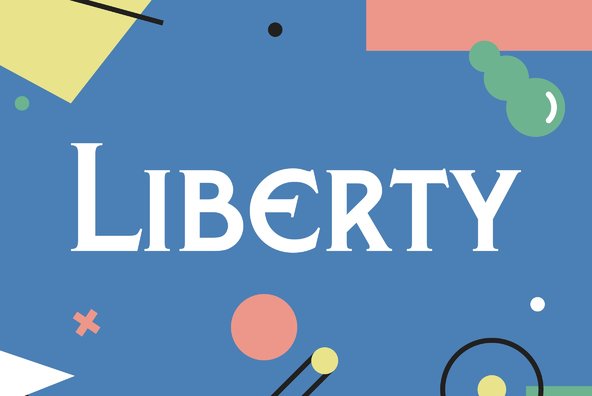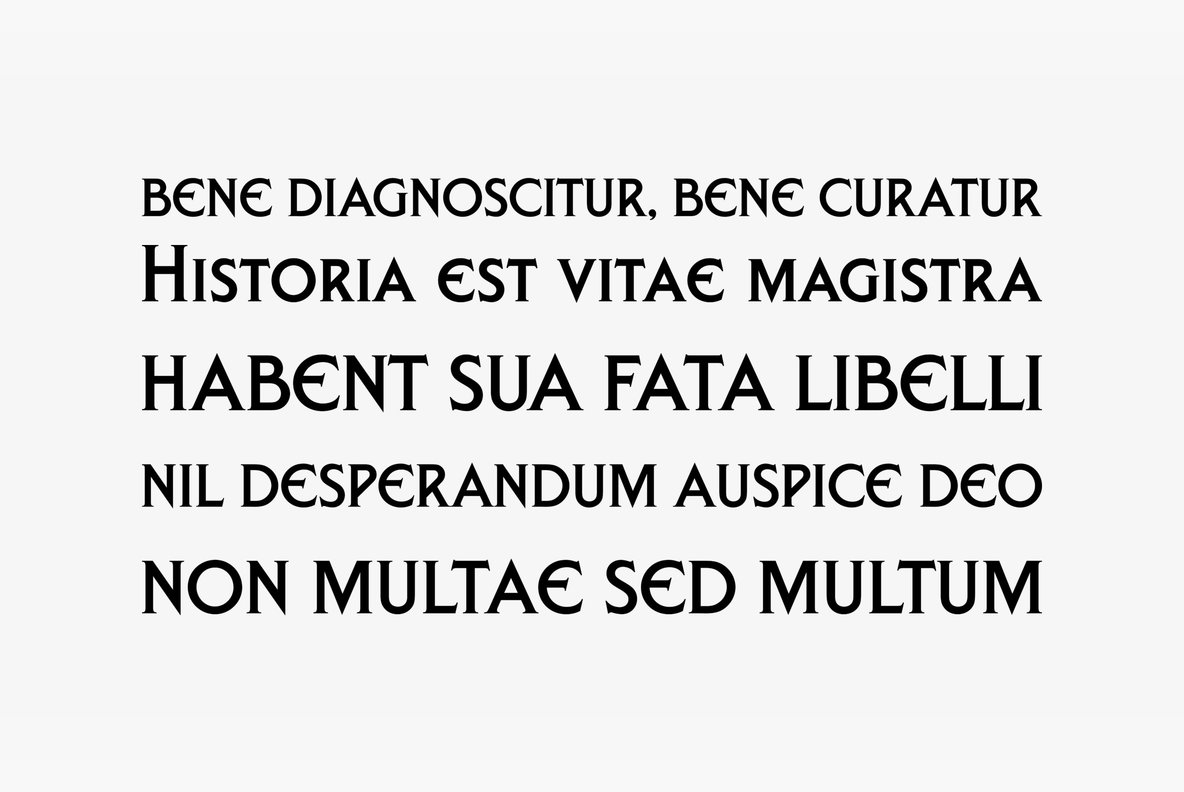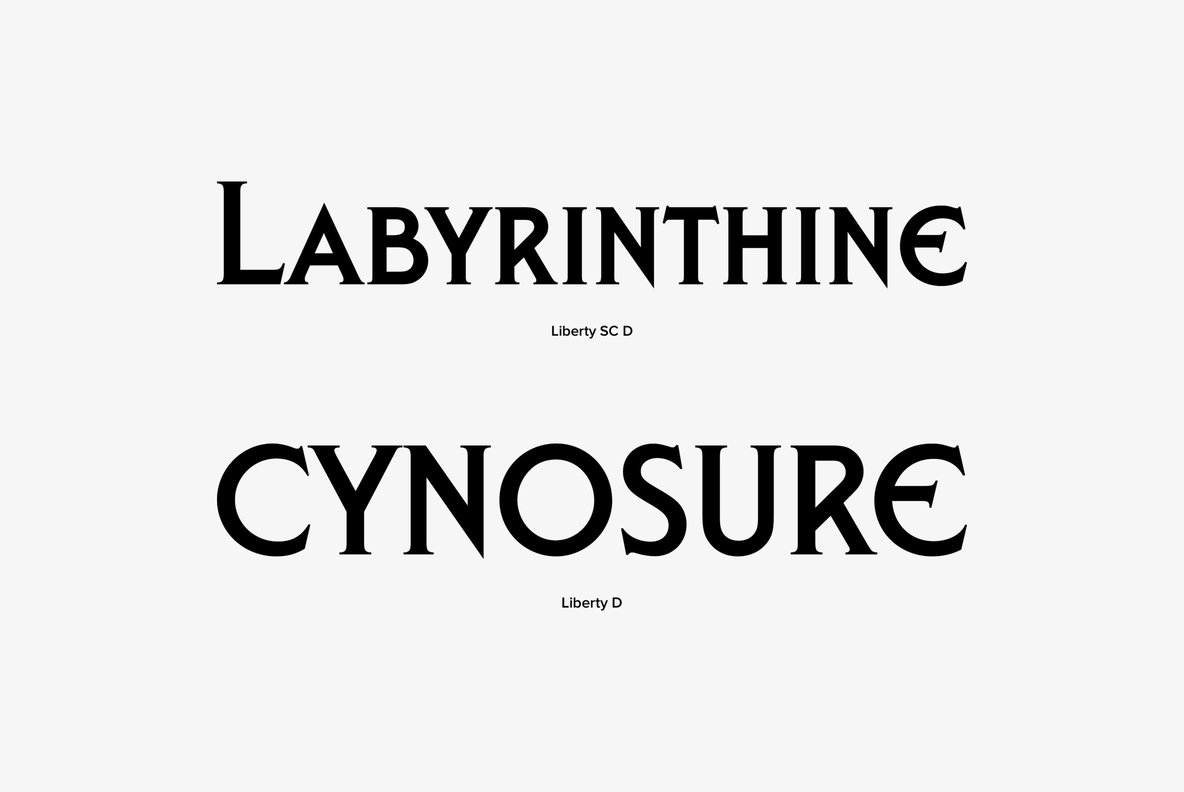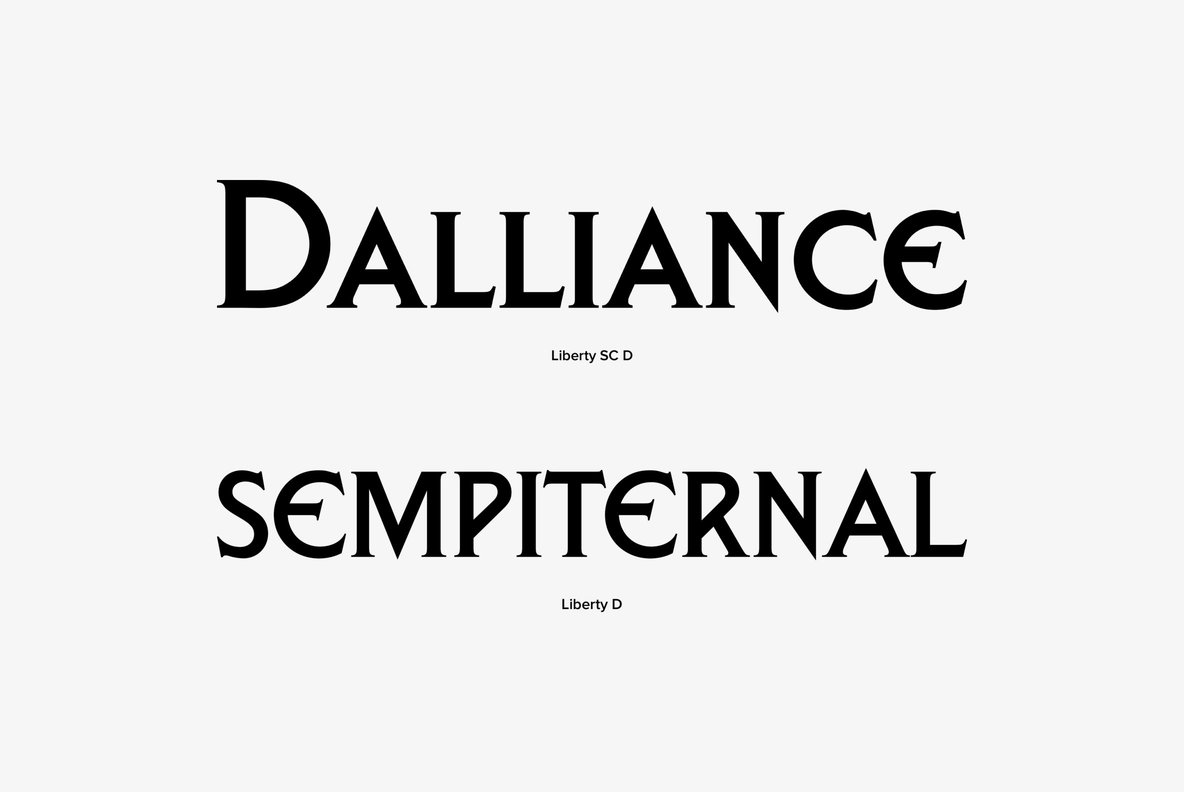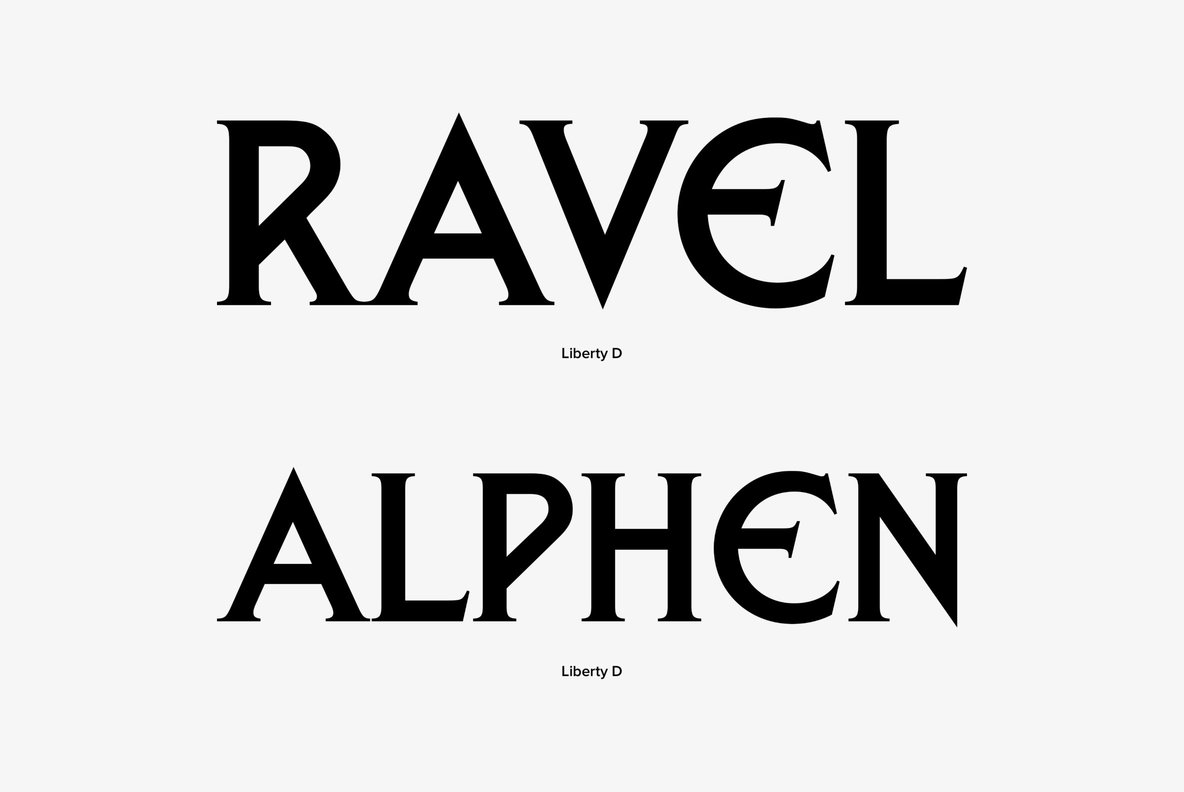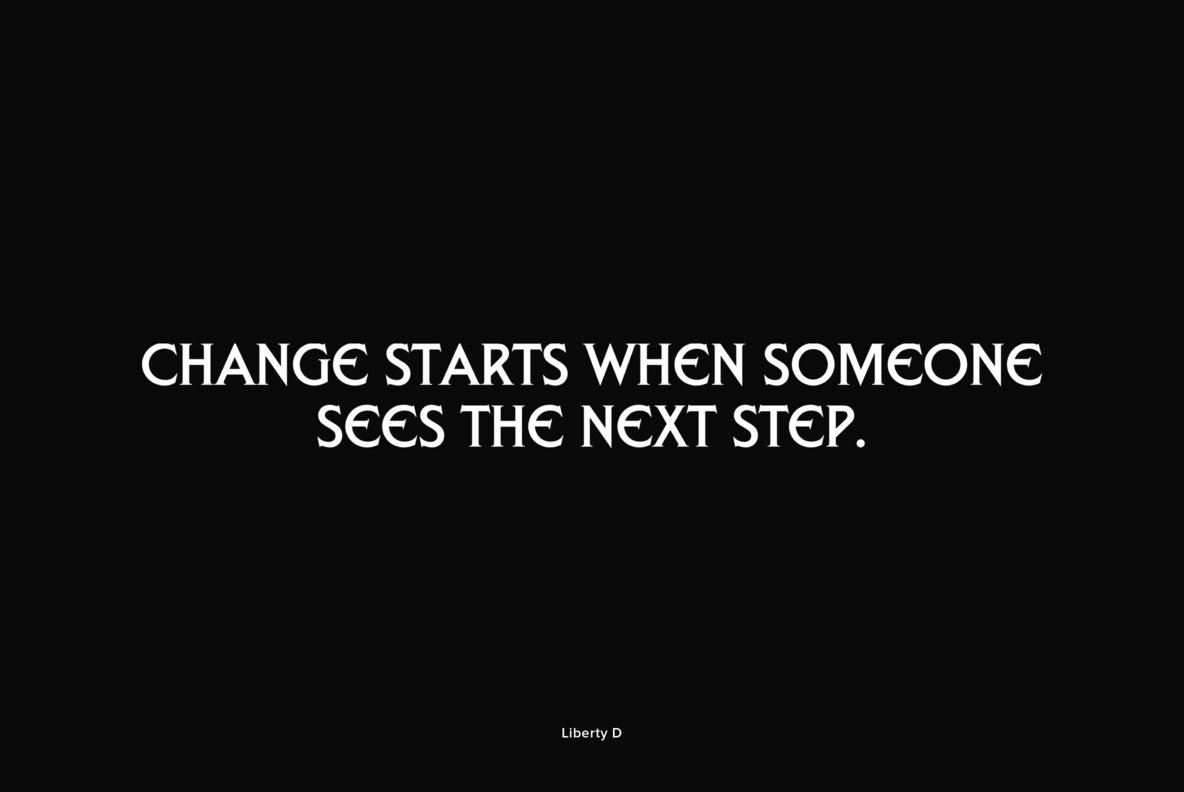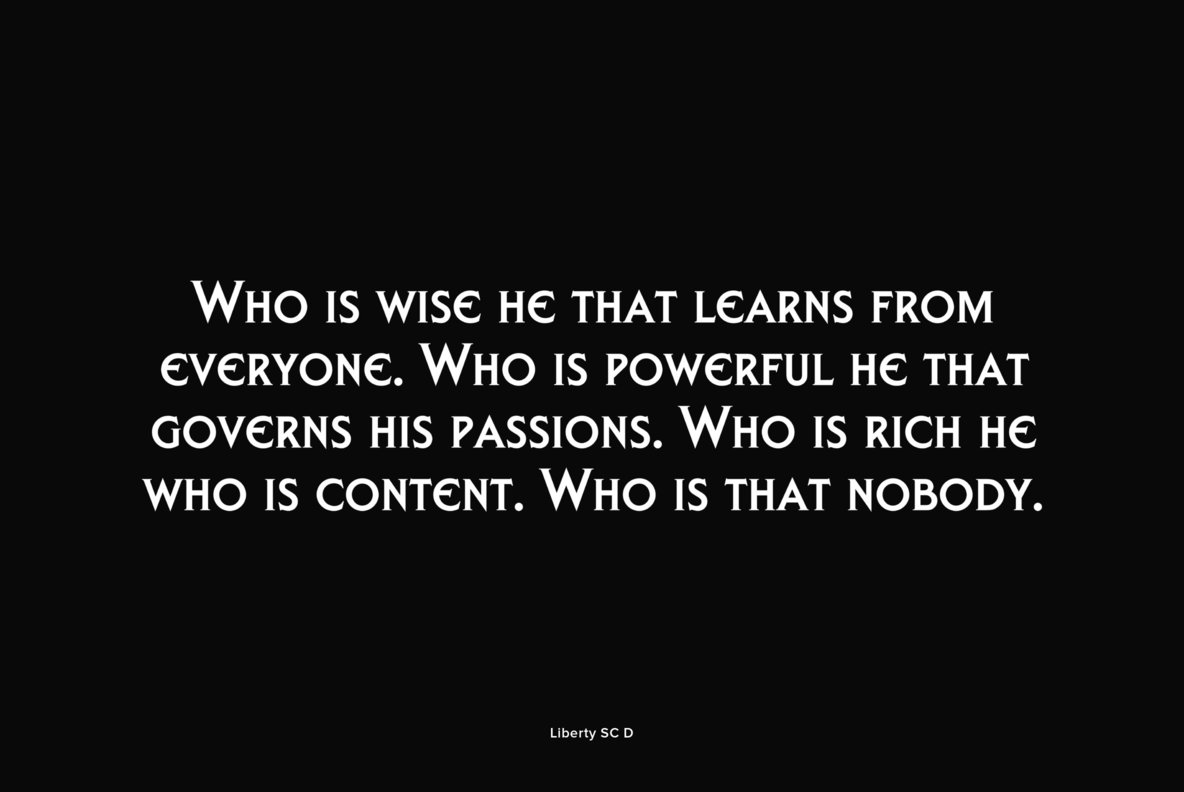
Designed by Andrew Newton in 1990, Liberty is a sharp serif font release by URW. Contains language support for West, East, Turkish, Baltic, and Romanian.